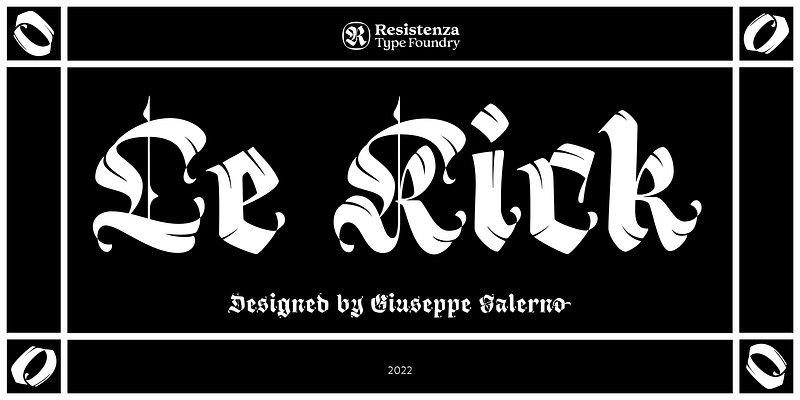
LeKick Font Free Download
LeKick Font Free Download is a dynamic and modern display typeface with a sporty, energetic attitude. Featuring sharp angles, bold forms, and a strong visual rhythm, it’s perfect for athletic branding, esports logos, posters, and product packaging that demands attention and motion.
LeKick’s design feels fast and fierce, making it ideal for headlines, merch designs, or any creative project that needs a punch of impact. It’s fully compatible with tools like Adobe Illustrator, Photoshop, and Figma, giving designers the flexibility to bring their vision to life effortlessly.